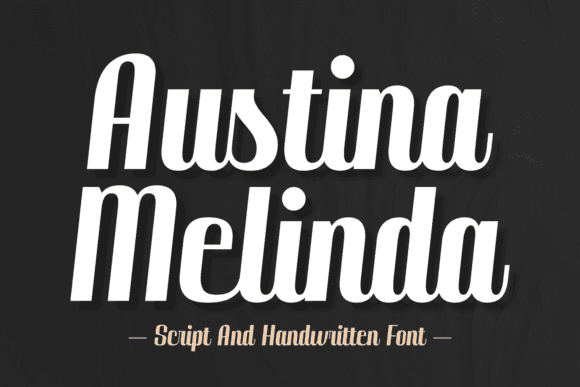
Austina Melinda Font for Headlines, Posters and Branding Projects
Austina Melinda is a modern display font designed to add elegance and clarity to any project involving headlines, posters, or branding visuals. With a high-contrast structure and contemporary flair, it offers a graceful typographic presence that elevates visual communication.
Perfect for lifestyle brands, creative agencies, and print designers, Austina Melinda is the go-to font for making a polished first impression across both digital and print campaigns.
- Designers building stylish brand identities
- Editorial professionals creating bold titles
- Marketers working on high-impact visuals
- Poster artists seeking modern font options
- Web developers enhancing hero sections
- Magazine-style headlines and titles
- Fashion and luxury branding visuals
- Event posters and promotional flyers
- Product packaging and editorial design
- Website headers and callout banners
- Elegant and stylish modern font style
- Designed for high-visibility display use
- Simple to integrate into brand systems
- High contrast for upscale presentation
- Works across print and web applications
Q: Is this font suitable for poster and branding work?
A: Yes. Austina Melinda is ideal for large-format and identity-driven design projects.
| Feature | Austina Melinda | Display Font X | Display Font Y |
| Font Style | Elegant modern display | Bold sans-serif | Stylized serif |
| Best Use Cases | Branding, headlines, posters | Web banners, flyers | Books, editorial spreads |
| Design Personality | Stylish, elegant, contemporary | Strong and modern | Classical with edge |